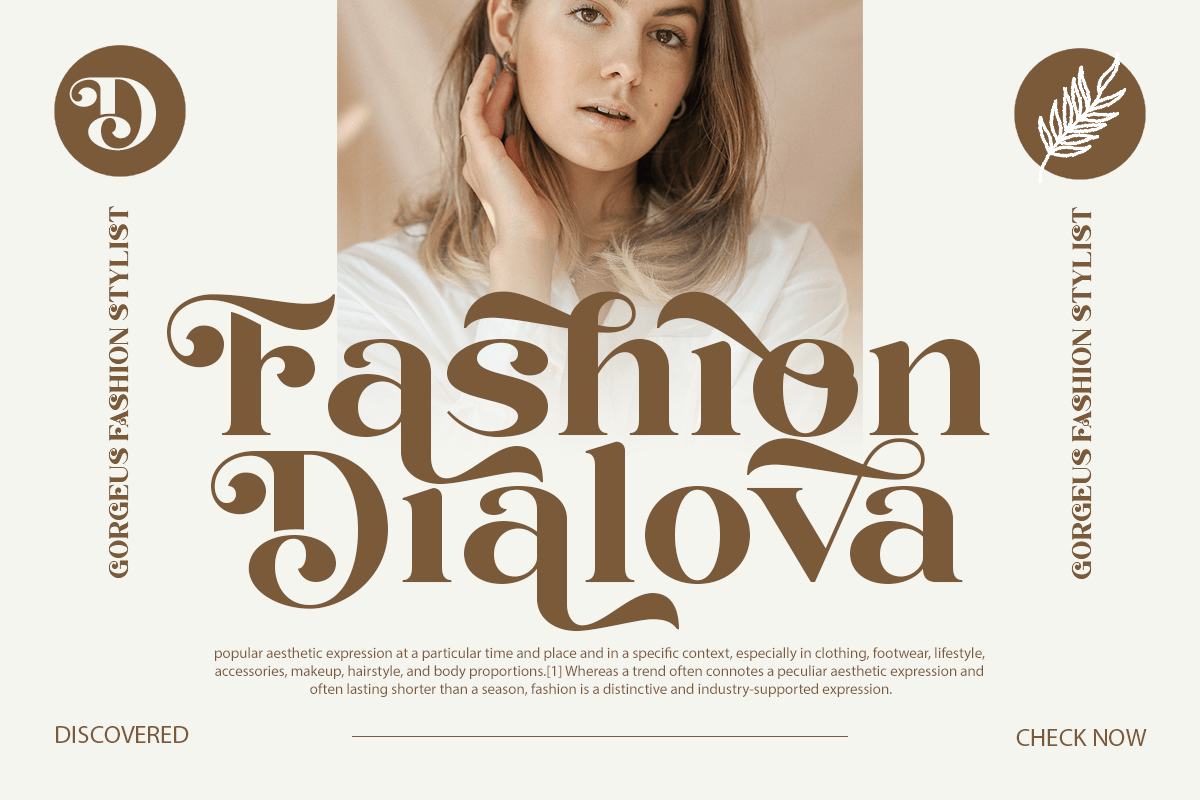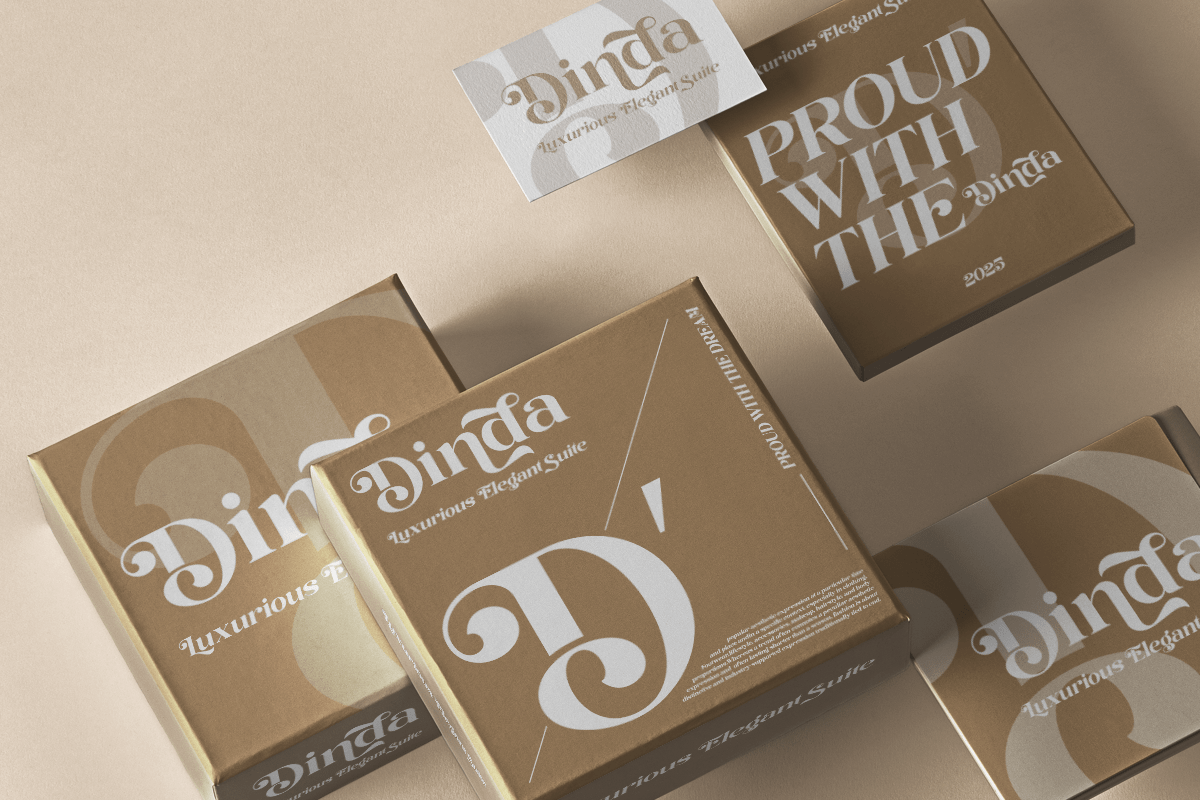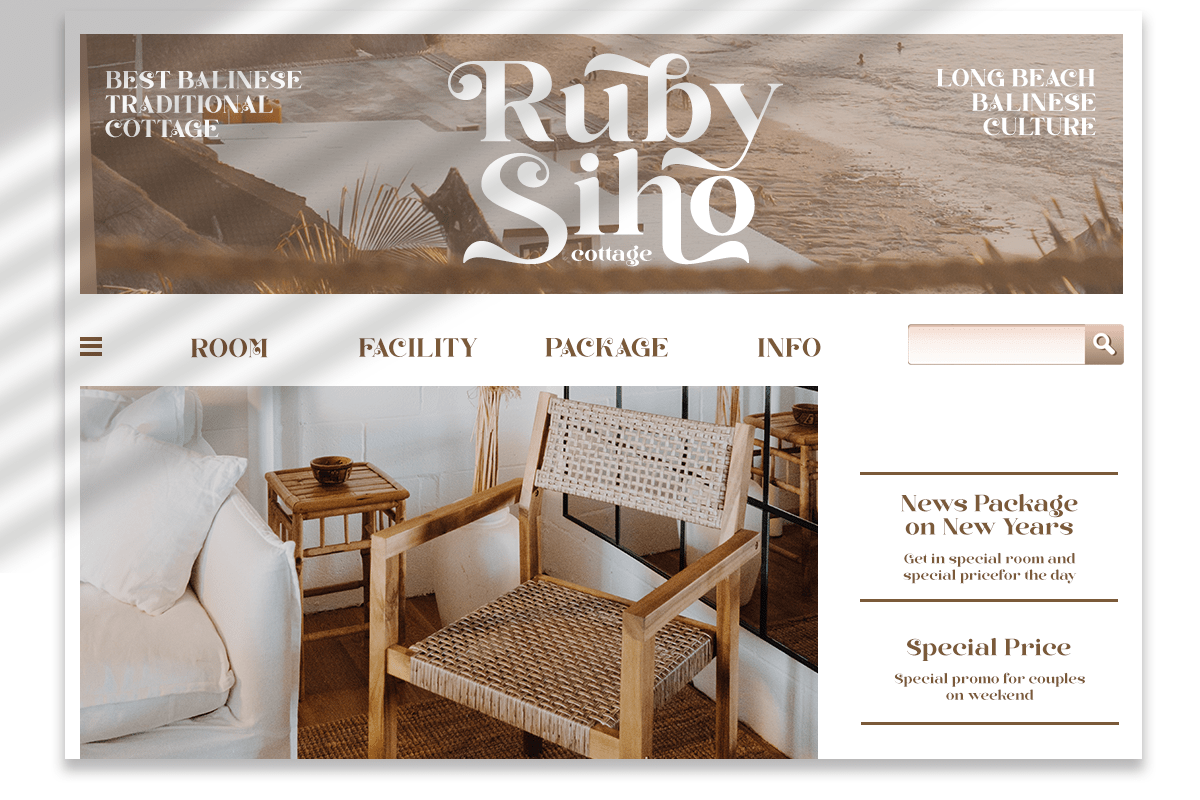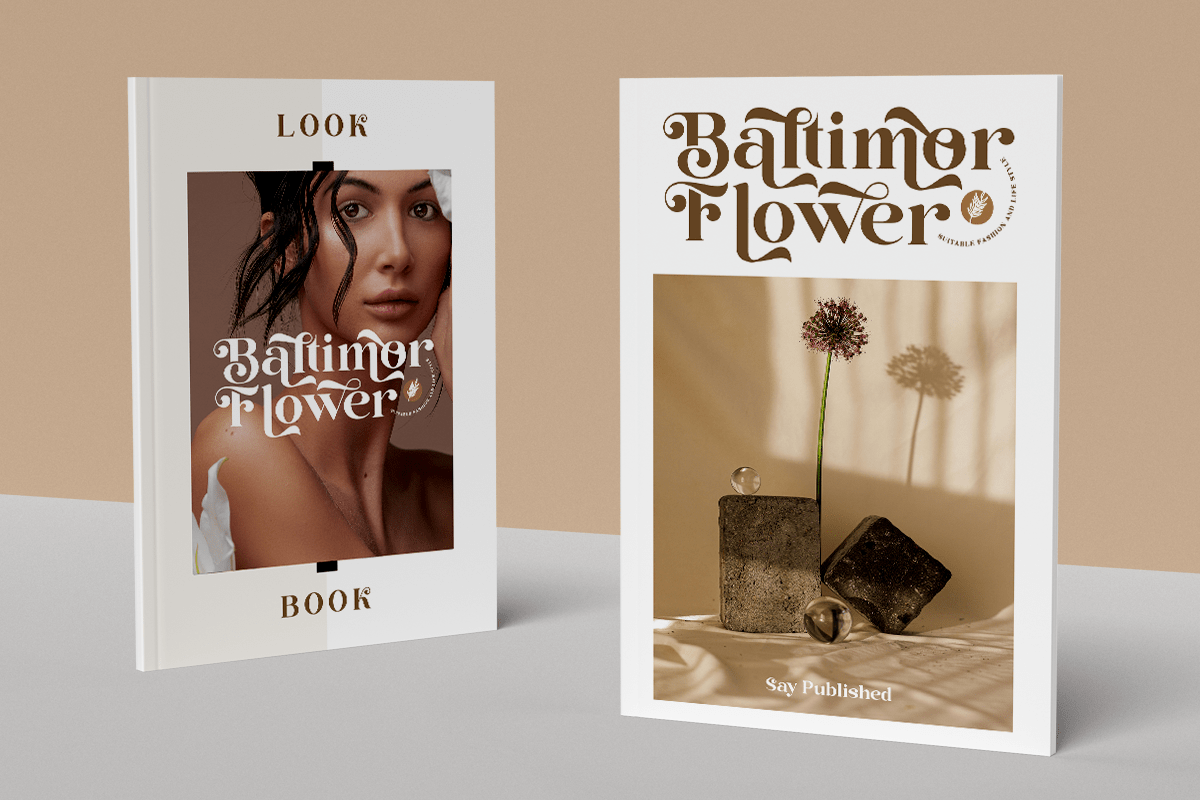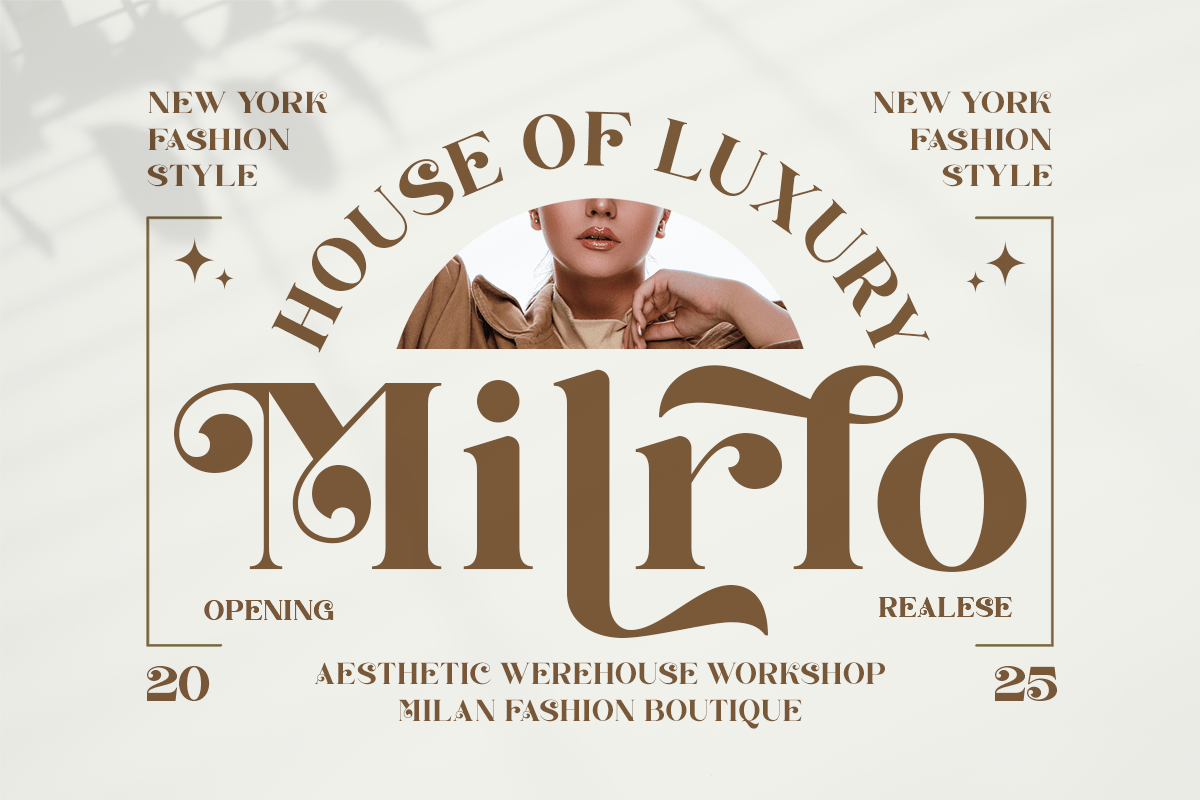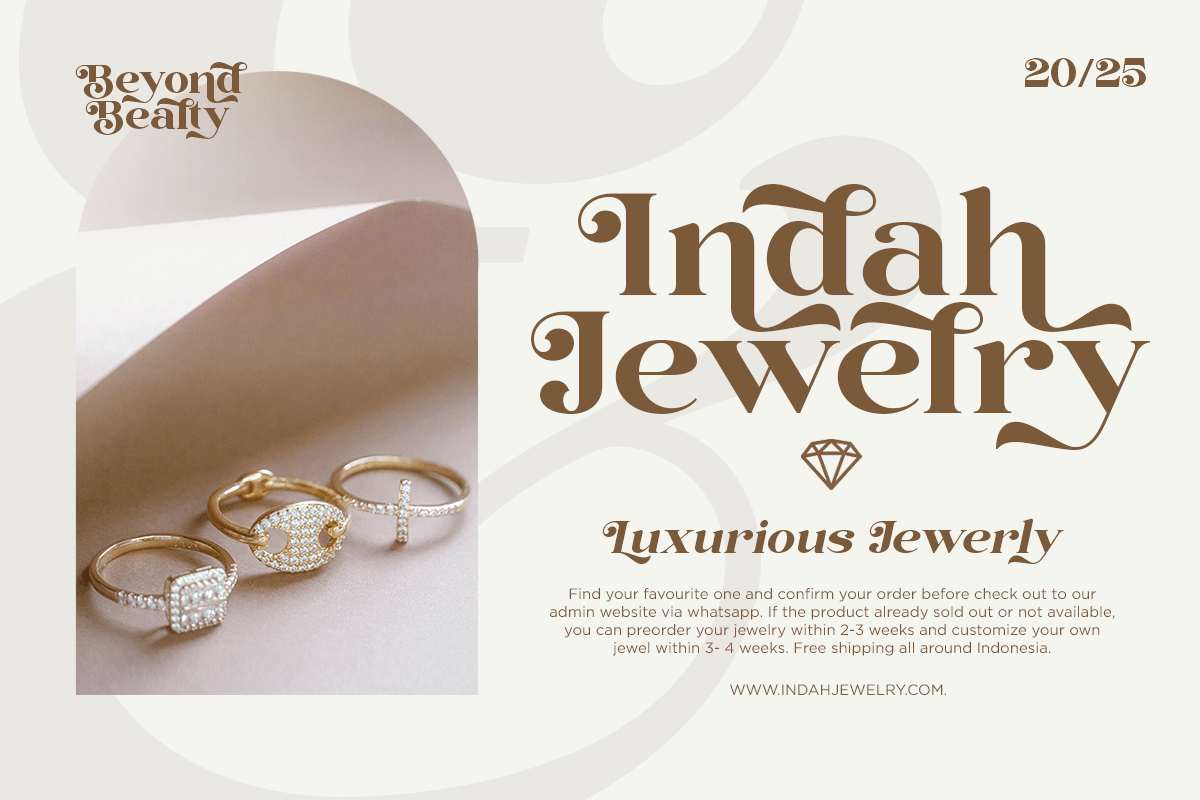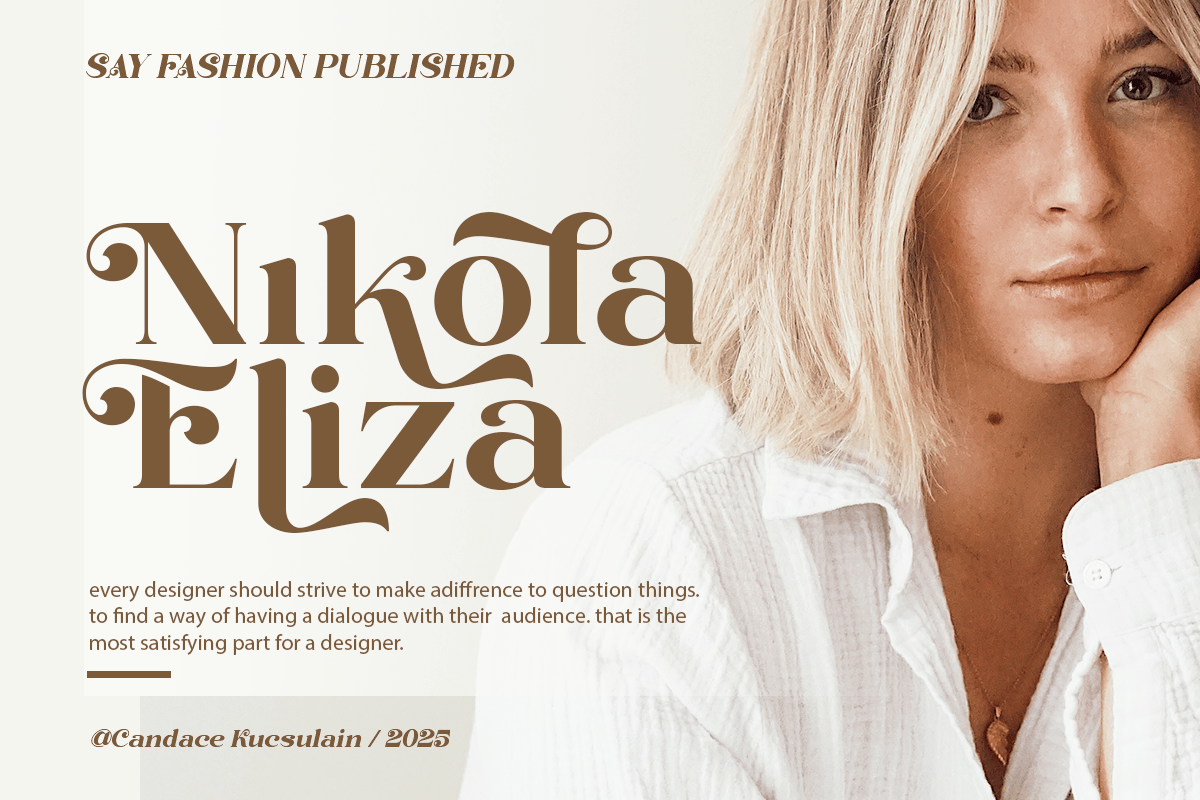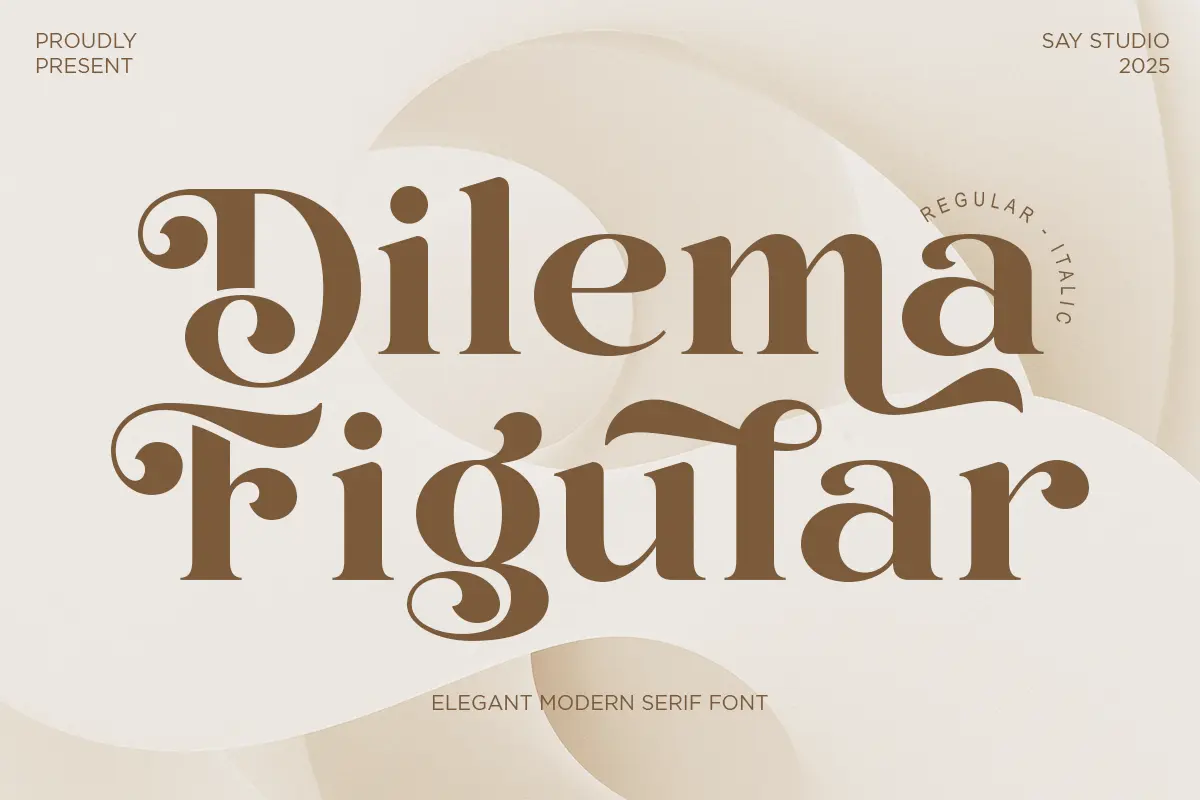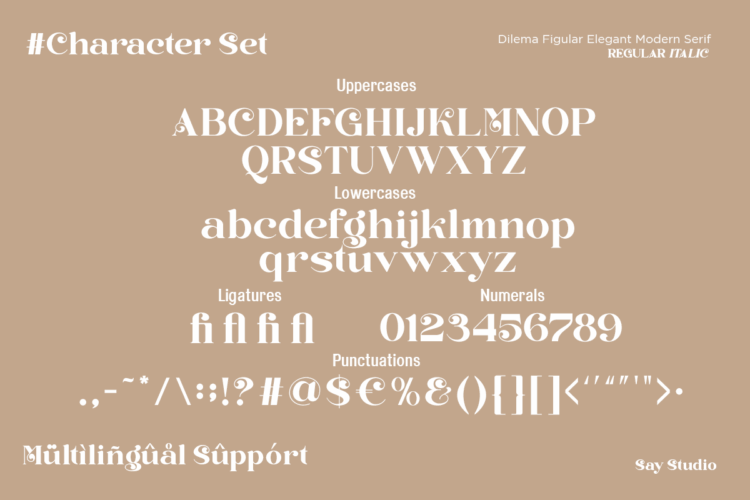
Dilema Figular Regular
Dilema Figular is an elegant modern serif font that blends refined curves with expressive flourishes. Designed with both Regular and Italic styles, this typeface delivers a sophisticated character ideal for branding, editorial layouts, wedding stationery, boutique packaging, and high-end visual identities. Its graceful serif forms and subtle contrast create a luxurious impression that feels timeless yet contemporary. Perfect for designers who want to add a romantic, stylish, and premium aesthetic to their creative projects.
Dilema Figular – Elegant Modern Font